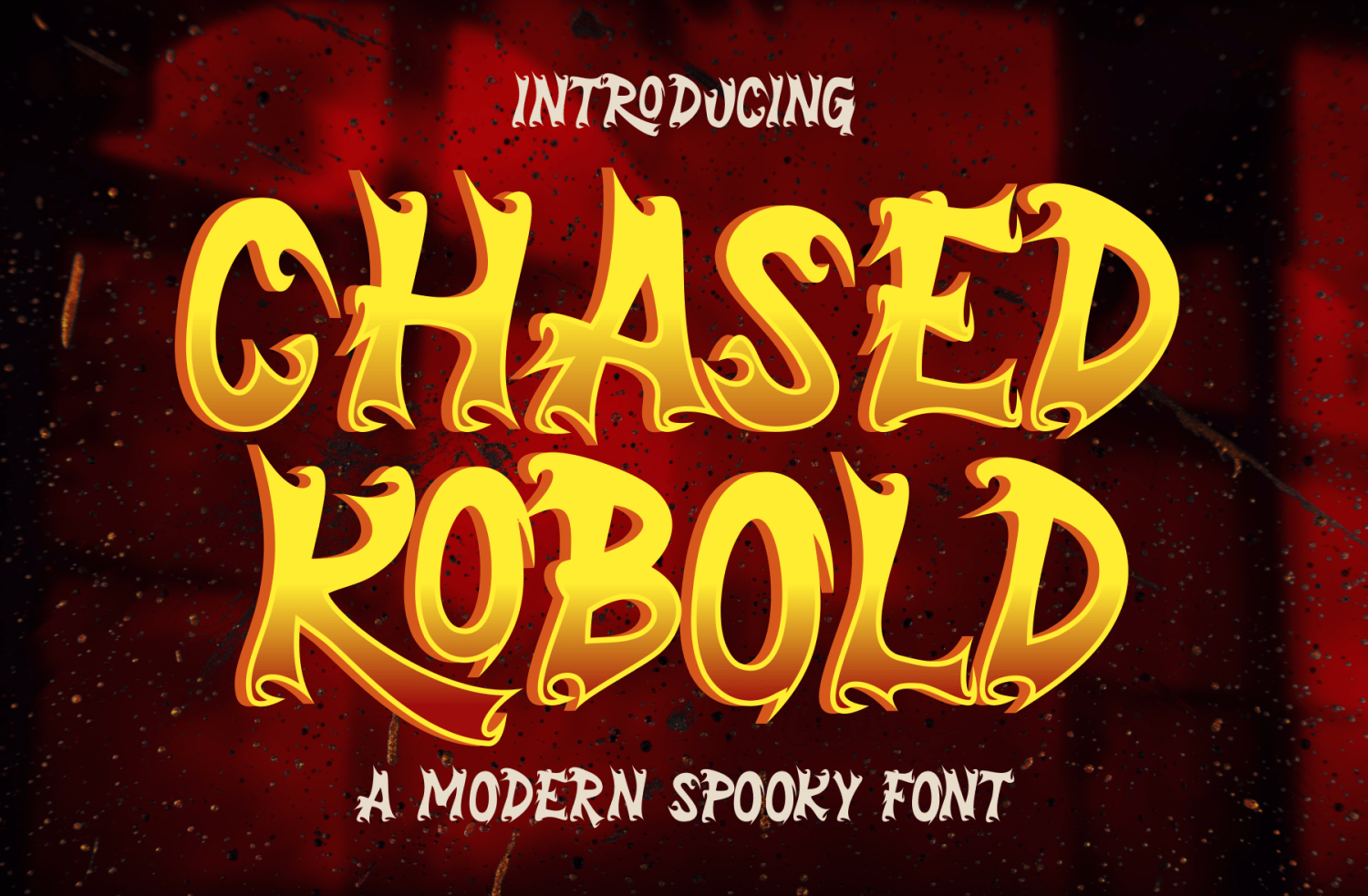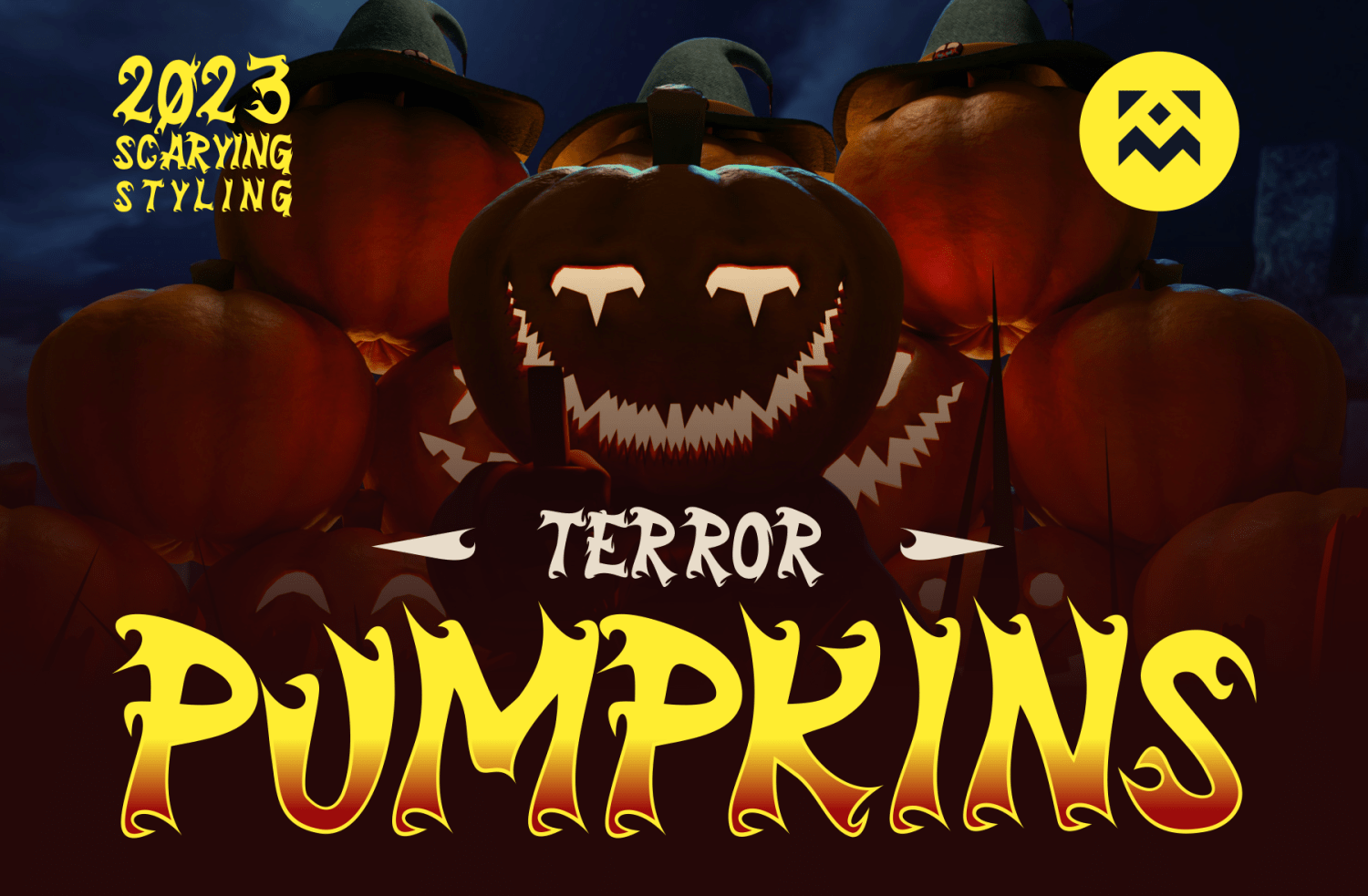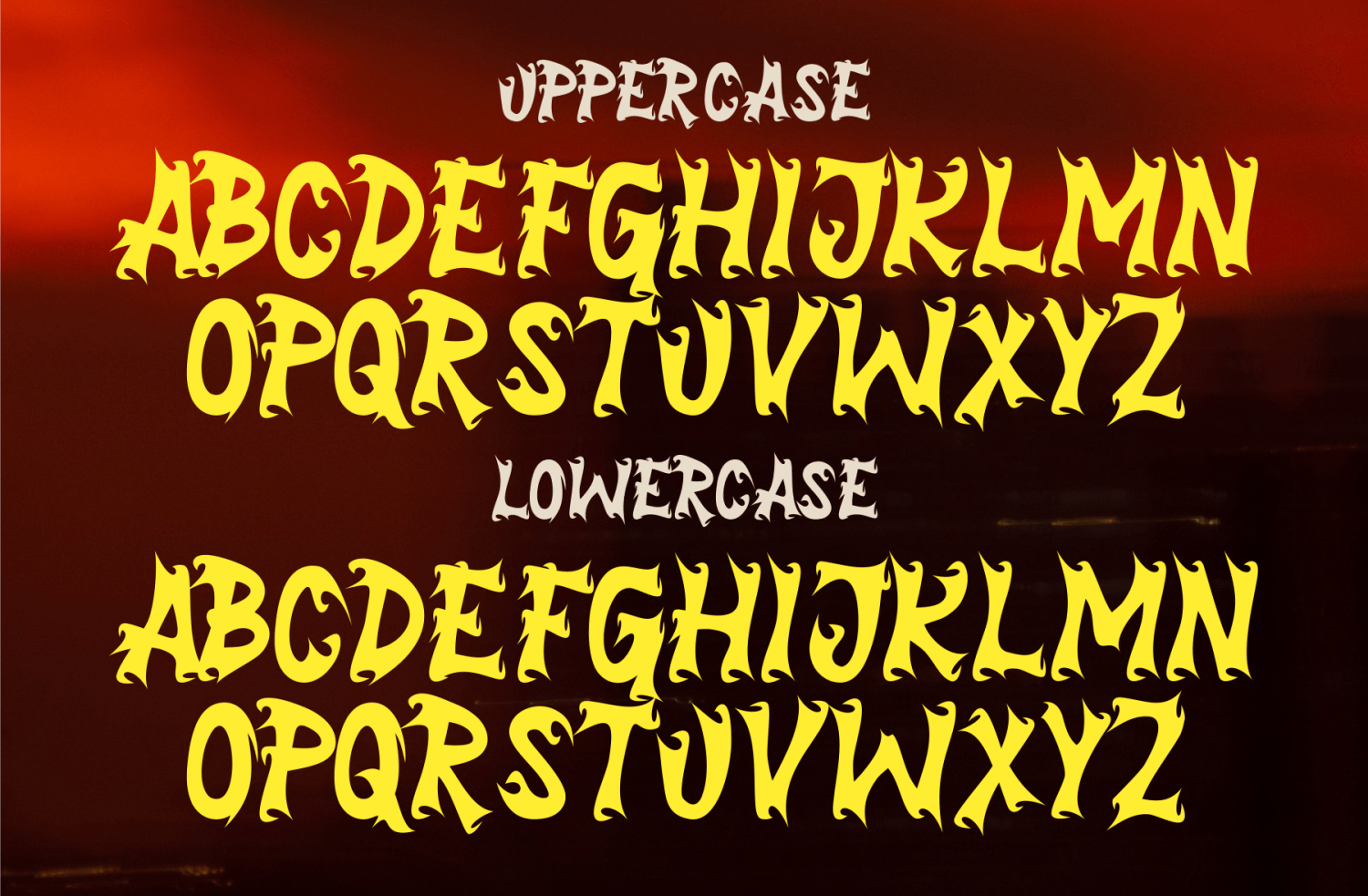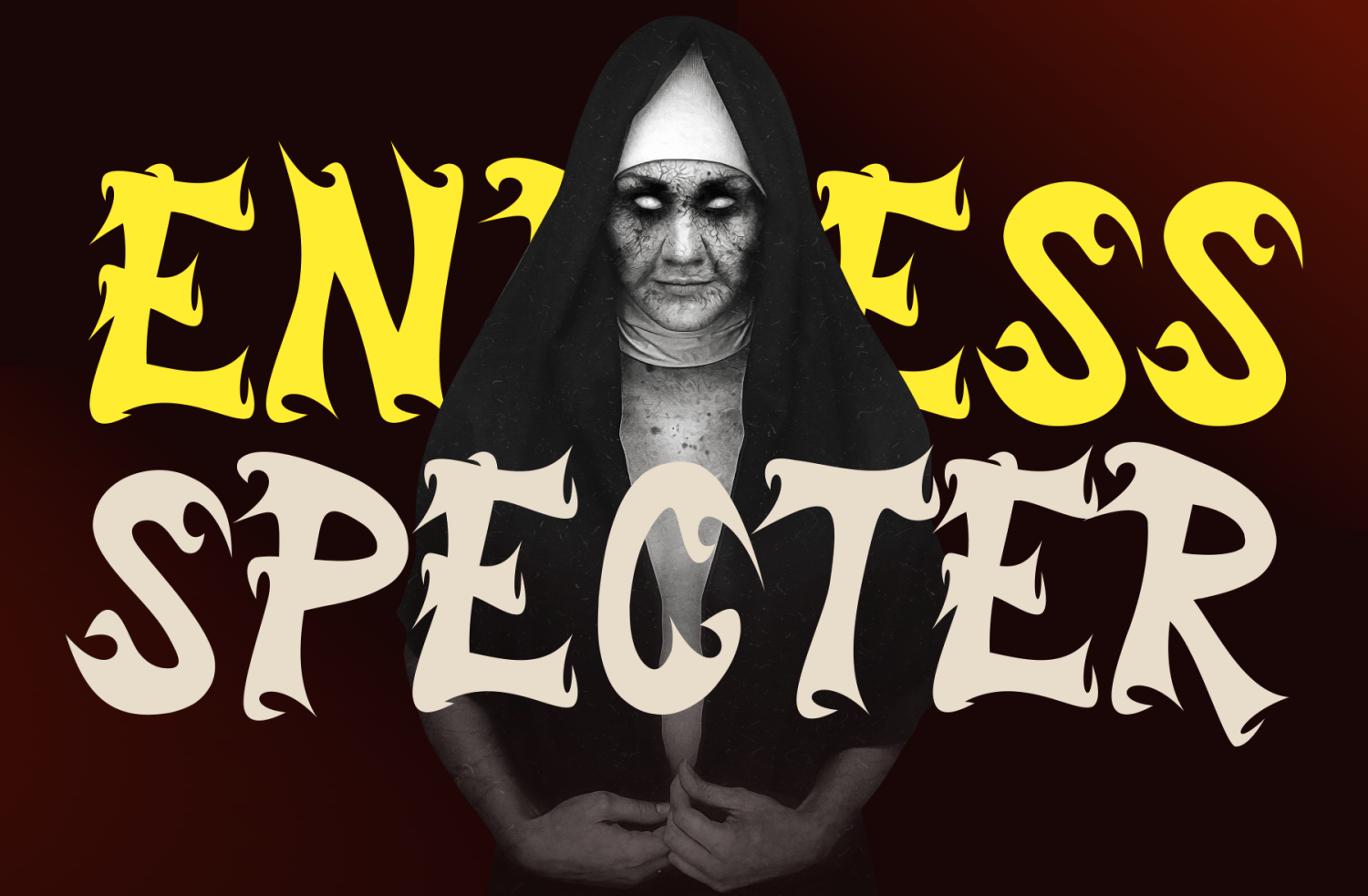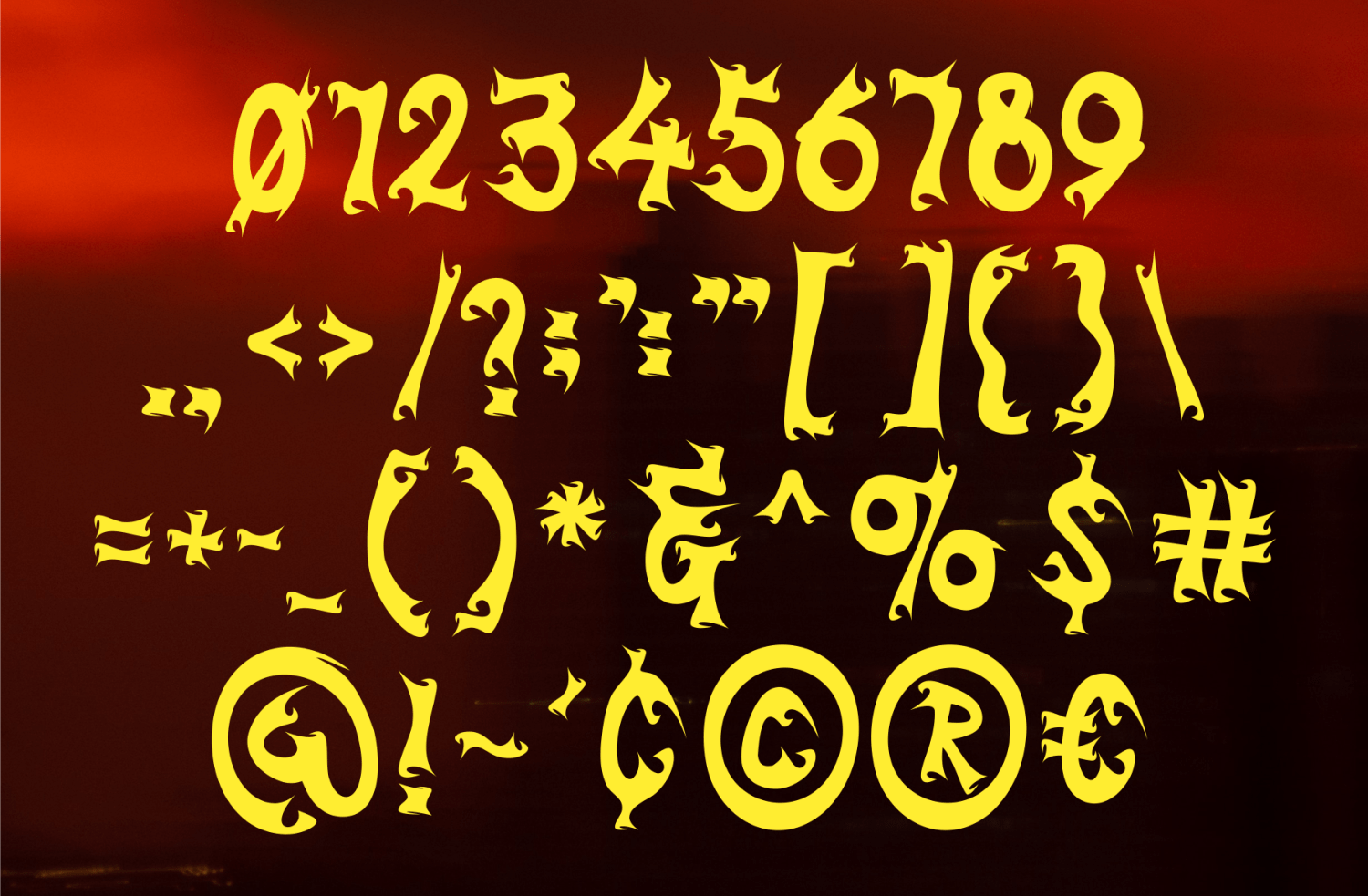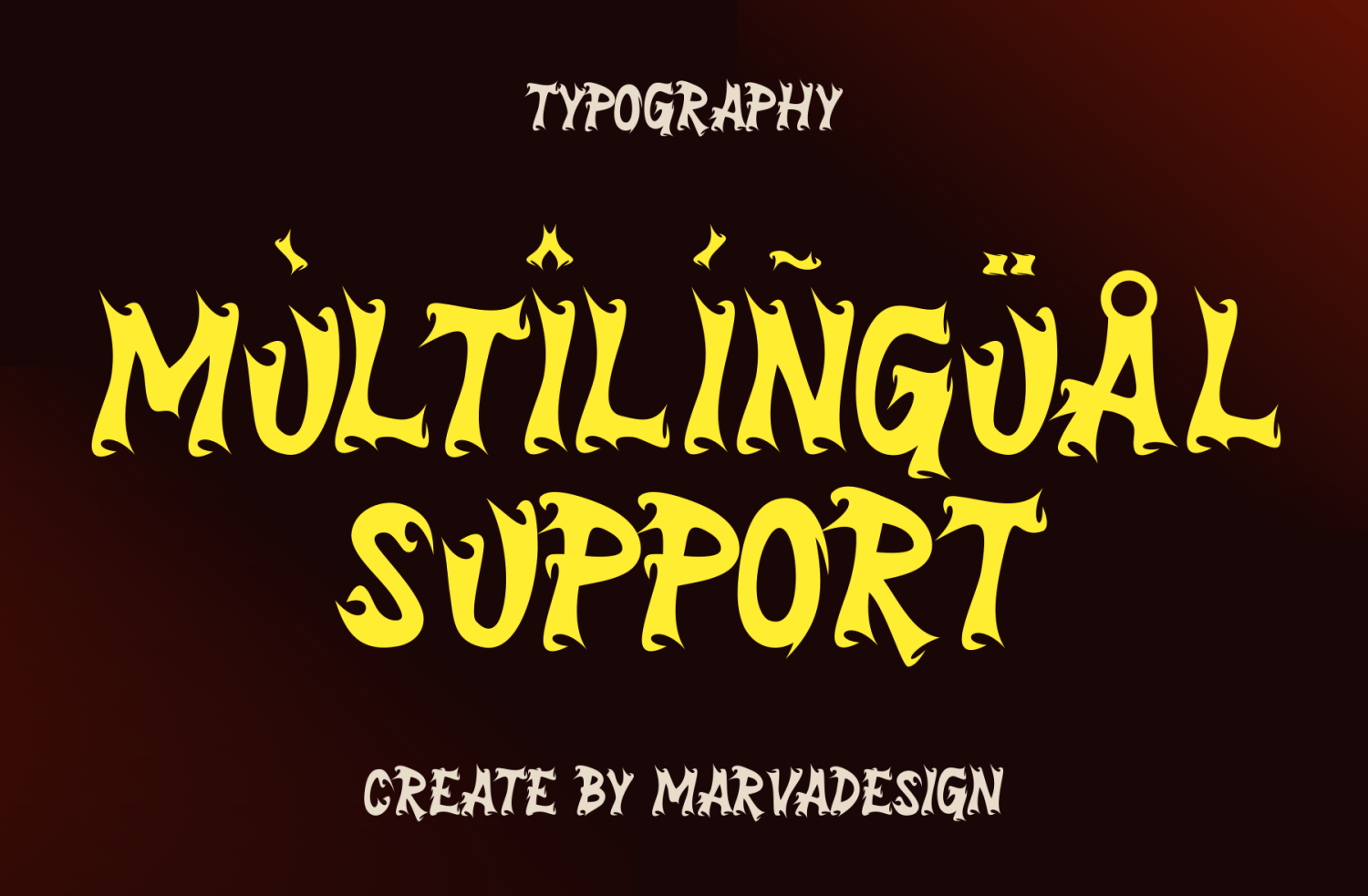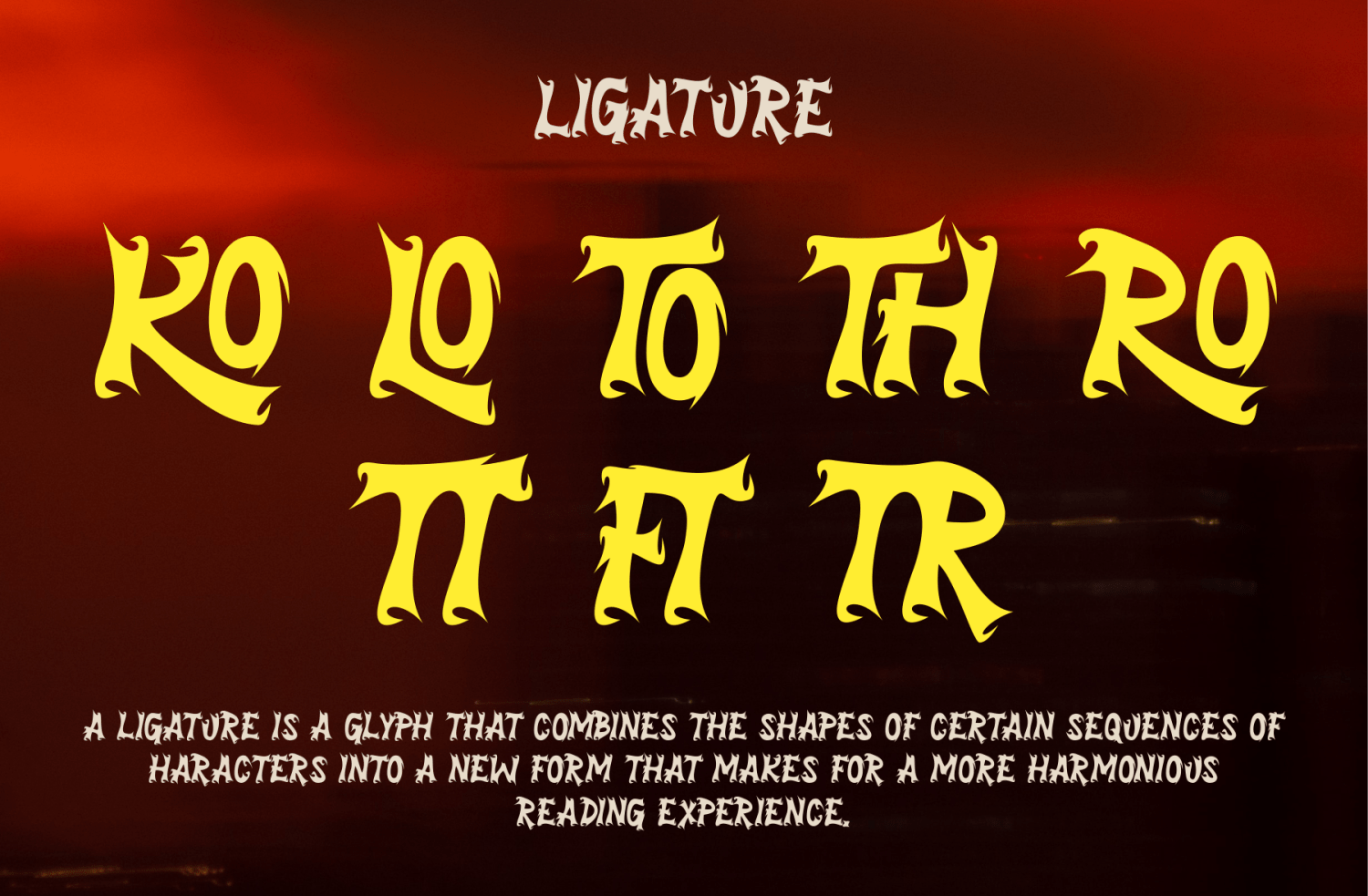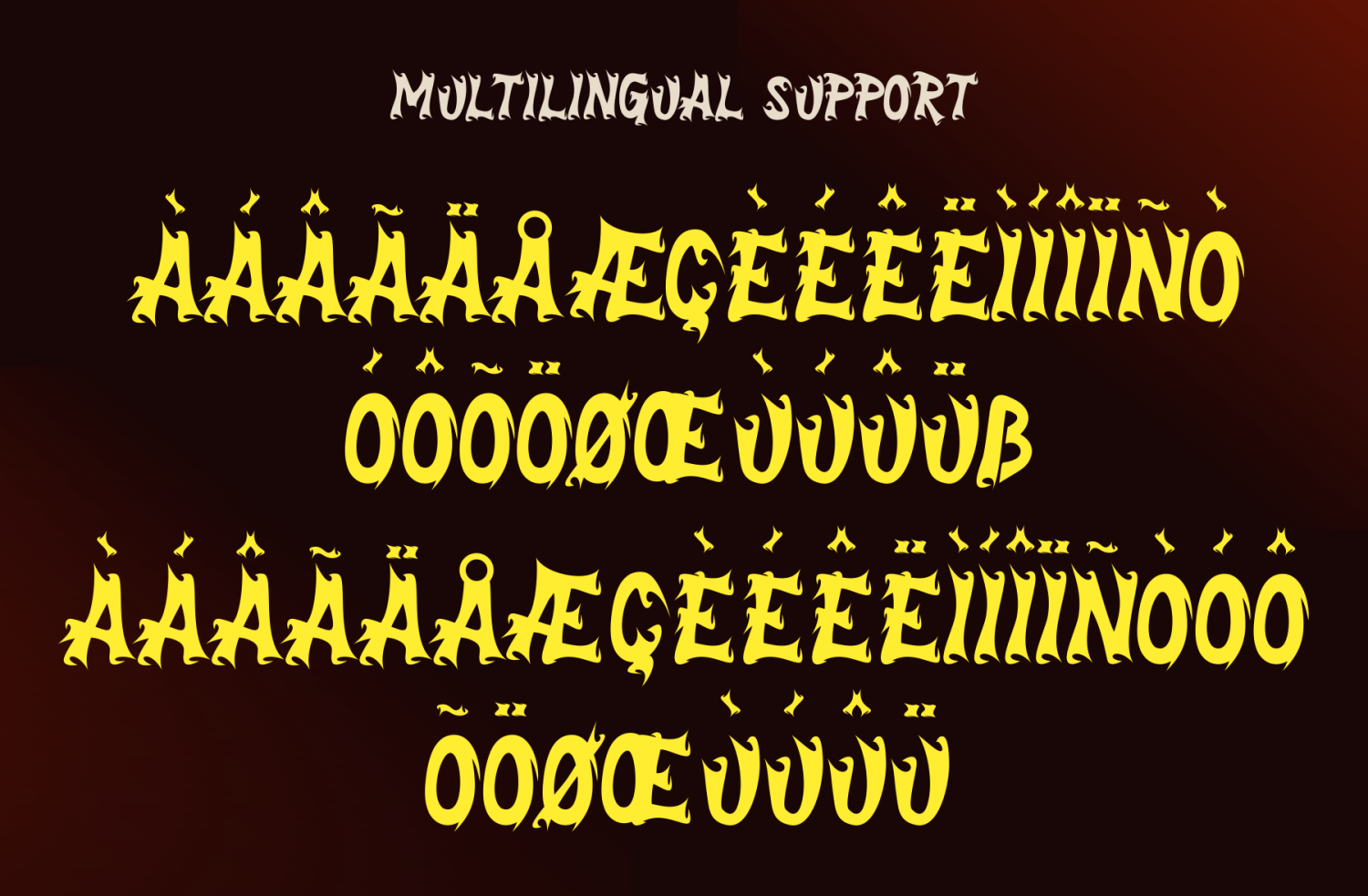
Chased Kobold
Font Family by Marvadesign
Introducing Chased Kobold is a bold and theatrical display font designed to evoke a sense of eerie excitement and supernatural flair. With exaggerated, flame-like serifs and expressive curves, this typeface blends vintage horror aesthetics with modern flair, making it ideal for Halloween-themed projects, horror movie titles, and spooky branding elements. Each character is crafted with sharp angles and dynamic strokes that give a sense of movement and energy, reminiscent of haunted tales and mythical creatures. The font includes a full uppercase and lowercase alphabet, although both are stylistically similar, maintaining consistent visual intensity throughout. Its vibrant gradient color treatments and shadow effects further enhance its dramatic appeal when used in graphic compositions. Chased Kobold is a perfect choice for designers aiming to capture attention and deliver a strong, atmospheric message with a touch of playfulness and fright.